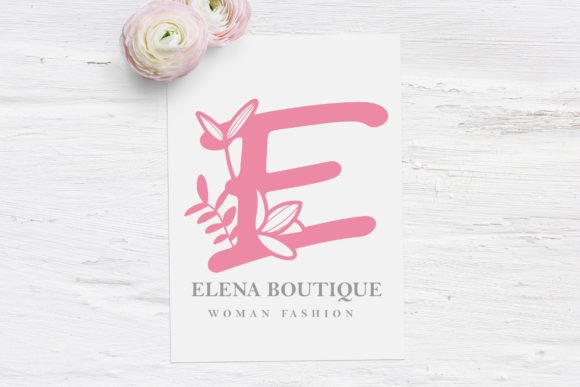
About East Sakura Monogram Font
East Sakura Monogram: Embrace the Elegance of a Delicate Handwritten Font
Introducing East Sakura Monogram, a font that exudes elegance and delicacy in every stroke. Its handwritten style captures the essence of sophistication, making it an incredibly versatile choice for a wide range of designs. From exquisite wedding invitations to beautiful stationary art, from captivating social media posts to stunning prints—East Sakura Monogram will sweep you off your feet, adding a touch of grace and charm to every creative project.
The allure of East Sakura Monogram lies in its refined and delicate appearance. Each letter radiates an air of timeless beauty, making it the perfect fit for projects that seek to evoke a sense of enchantment and sophistication.
Designing with East Sakura Monogram is a delightful experience. Whether you’re crafting elegant wedding invitations or designing personalized greeting cards, this font infuses your work with an aura of refinement that leaves a lasting impression on all who see it.
Expressing sentiments becomes an enchanting experience with East Sakura Monogram. From conveying heartfelt messages to sharing joyous announcements, this font adds an element of grace that elevates your words to new heights.
Gorgeous stationary art becomes a true masterpiece with East Sakura Monogram’s versatile style. Whether you’re creating personalized prints, inspirational quotes, or intricate illustrations, this font adds a unique touch that sets your art apart.
For social media enthusiasts, East Sakura Monogram shines brightly. It brings a touch of elegance to your posts, ensuring that your content stands out amidst the crowd. Watch as likes and shares multiply when you use this font to express your thoughts and ideas.
East Sakura Monogram’s elegance extends to business applications as well. From logos to business cards, this font adds a touch of finesse that communicates professionalism and creativity. It’s the perfect choice for businesses looking to make a memorable impression.
And when it comes to unleashing your creativity, East Sakura Monogram won’t disappoint. Its versatility allows it to complement a wide array of design concepts, from classic and timeless to modern and chic.
In conclusion, East Sakura Monogram is more than just a font; it’s an embodiment of elegance and sophistication. Fall in love with its delicate beauty, and let it inspire your most cherished projects. Embrace the versatility it offers, and witness how it transforms your ideas into stunning works of art. Whether you’re celebrating love, expressing gratitude, sharing inspiration, or building a captivating brand presence, East Sakura Monogram will be your ultimate ally, adding a touch of enchantment and charm. Let this font be the key to unlocking the full potential of your creativity, and watch as your designs come alive with the timeless elegance of East Sakura Monogram.